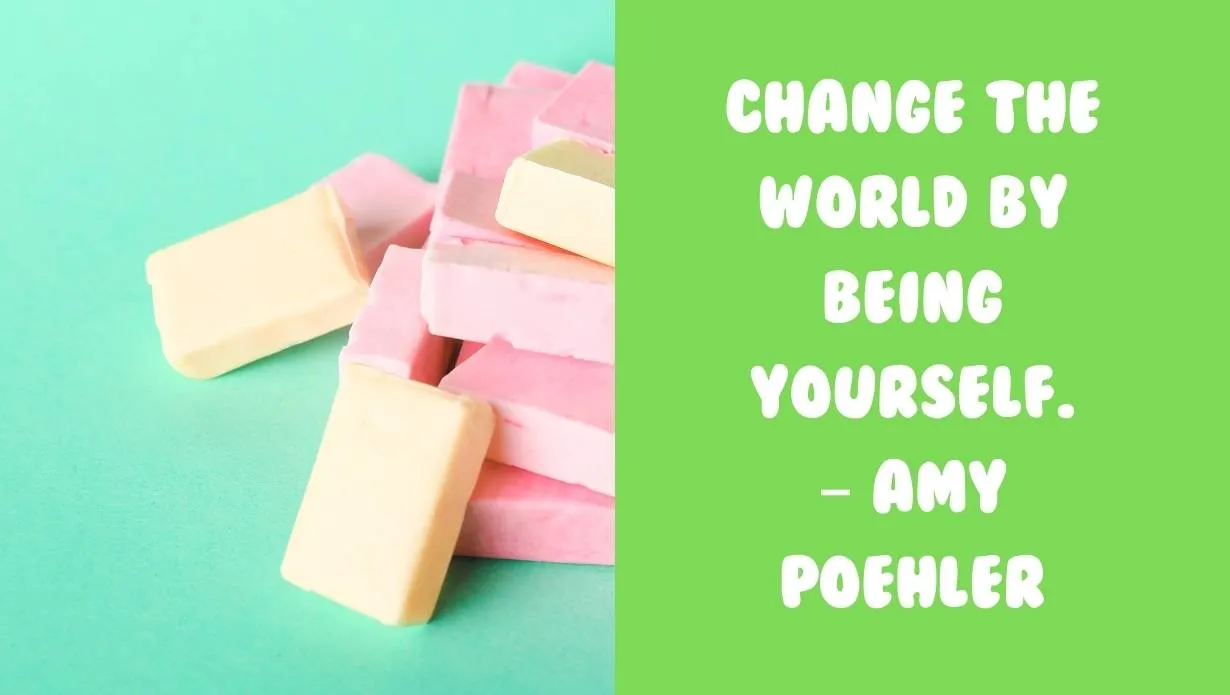
Bubblegum Font was developed by Thomas W. Ziller. This typeface belongs to the Fancy Font Family. This font is widely used for its attractive and bubbly shapes. It is a great 3D texture and elegant curves. This typeface is specified by the CSS Family.
This cozy typeface can be used for various purposes such as headlines, and much more. This font is available in different styles such as Regular, Italic, Bold, and Script. These styles give a new and improved look to the documents or presentations. Scarecrow Font is similar to this cozy font.
Bubblegum Font Family
| Name | Bubblegum Font |
| Designer | Thomas W. Ziller |